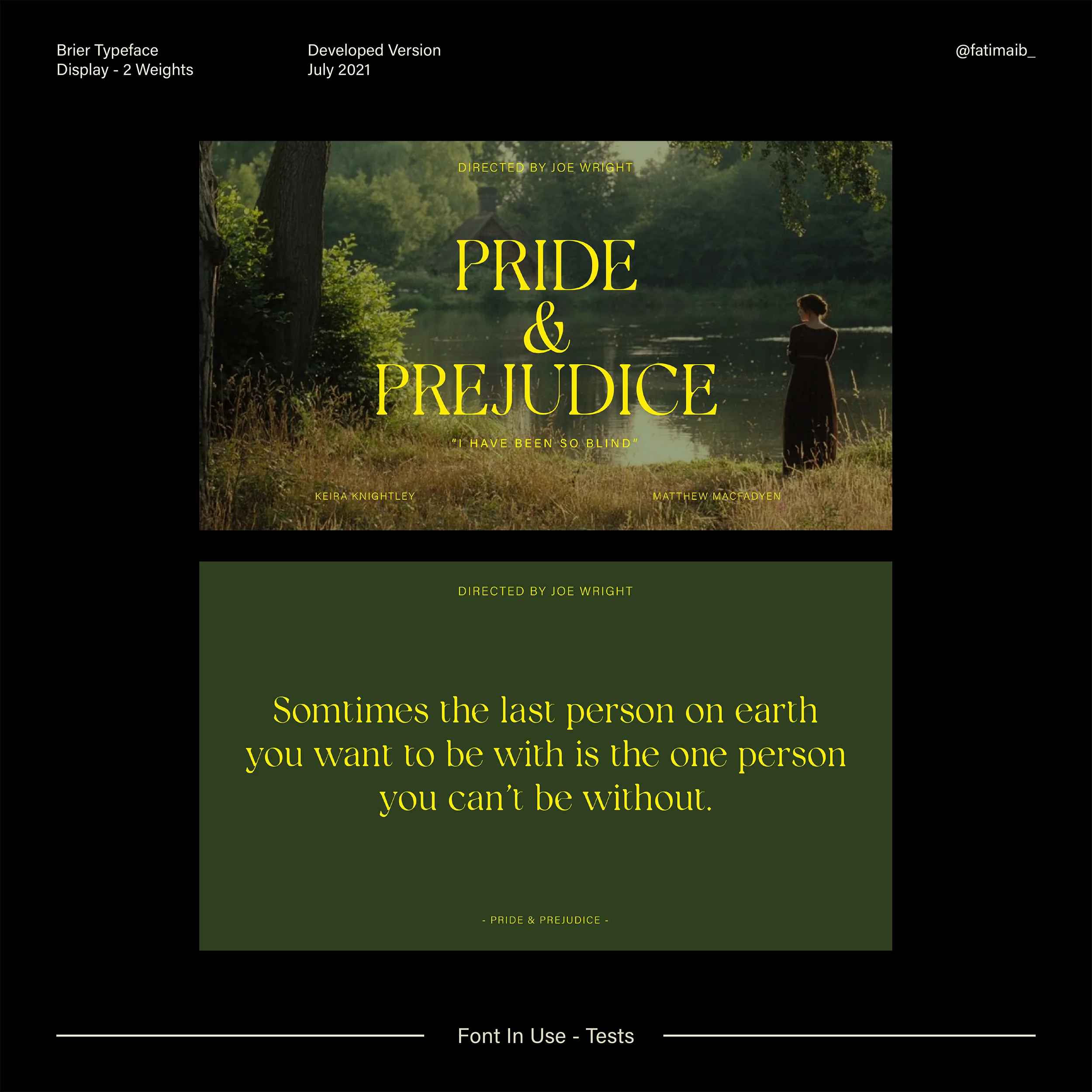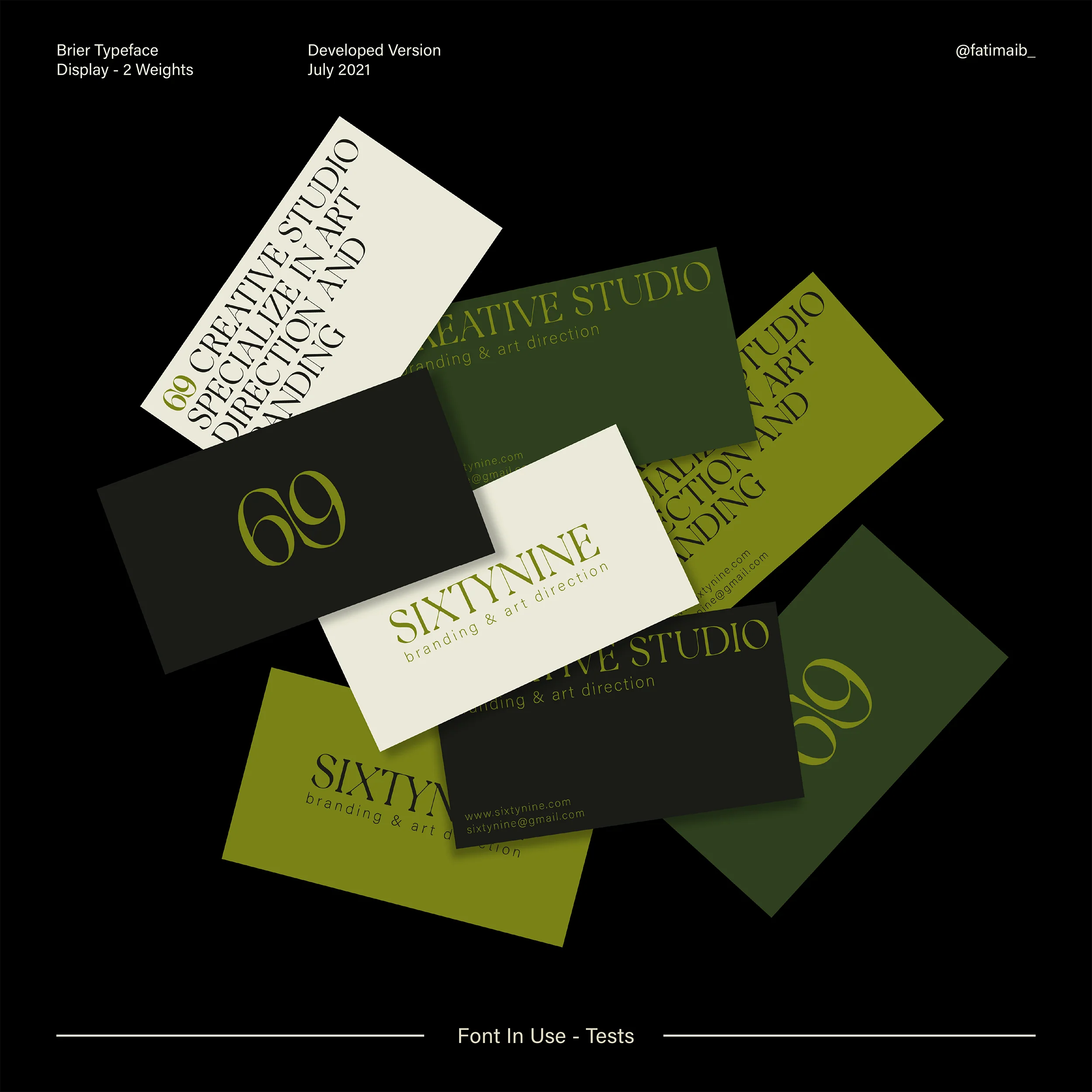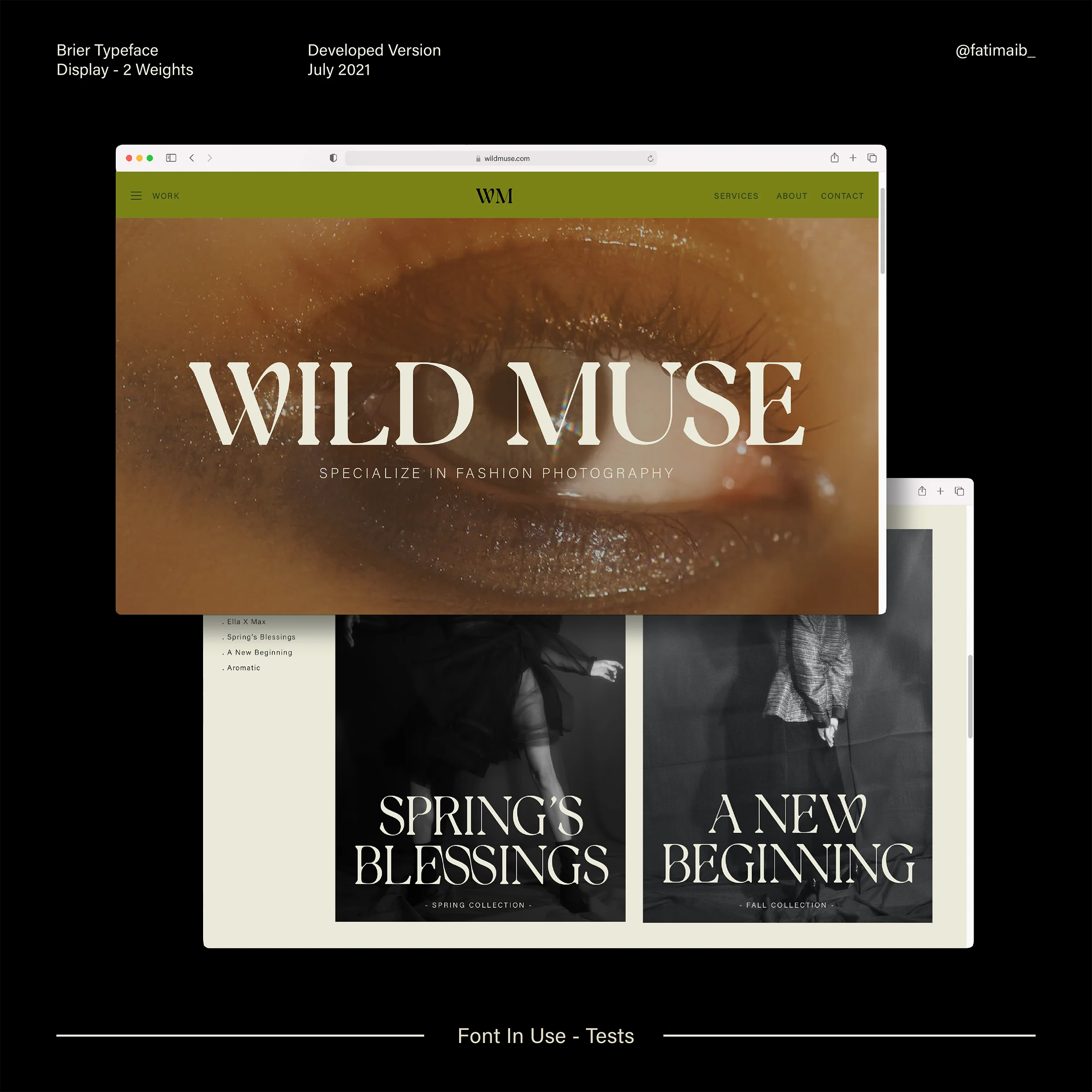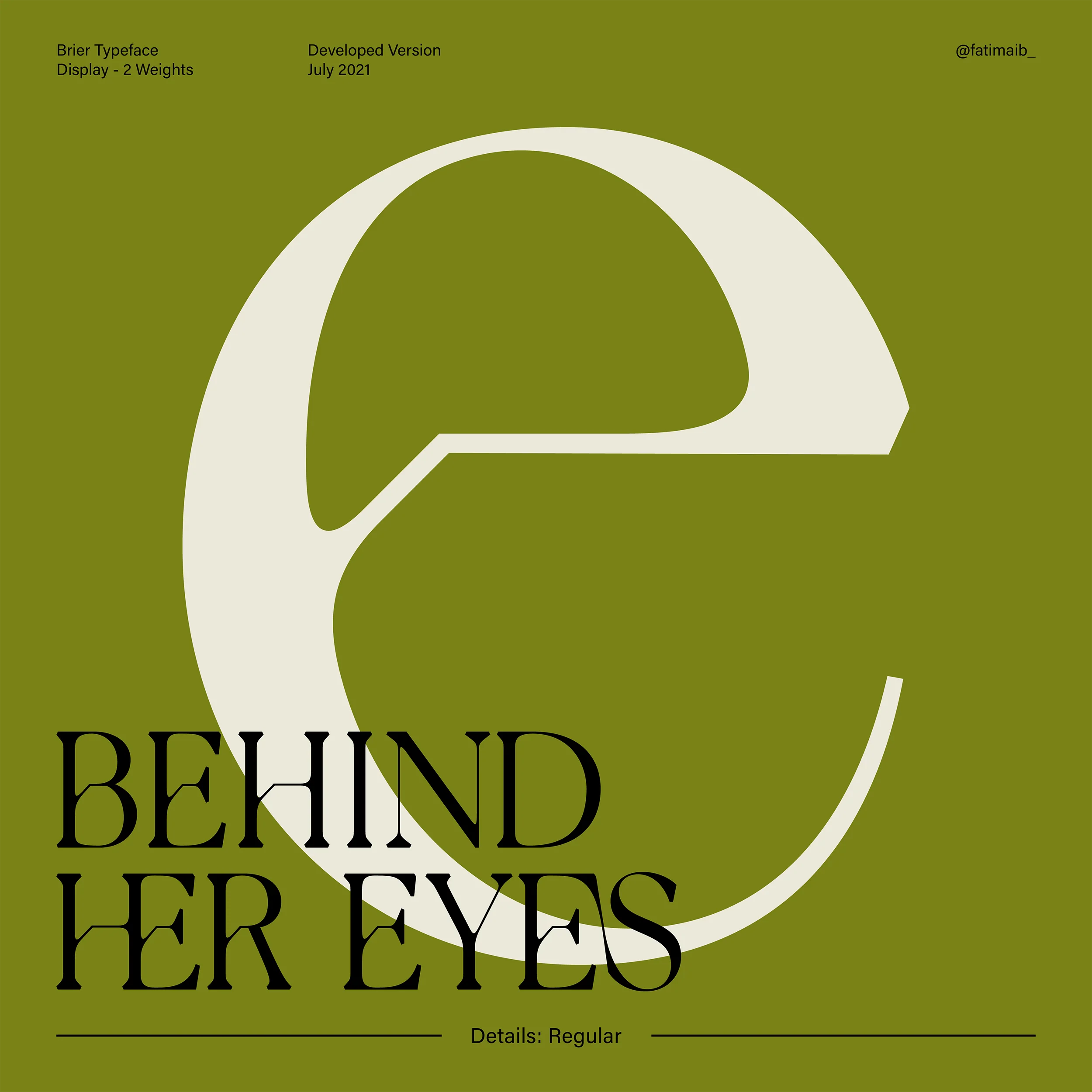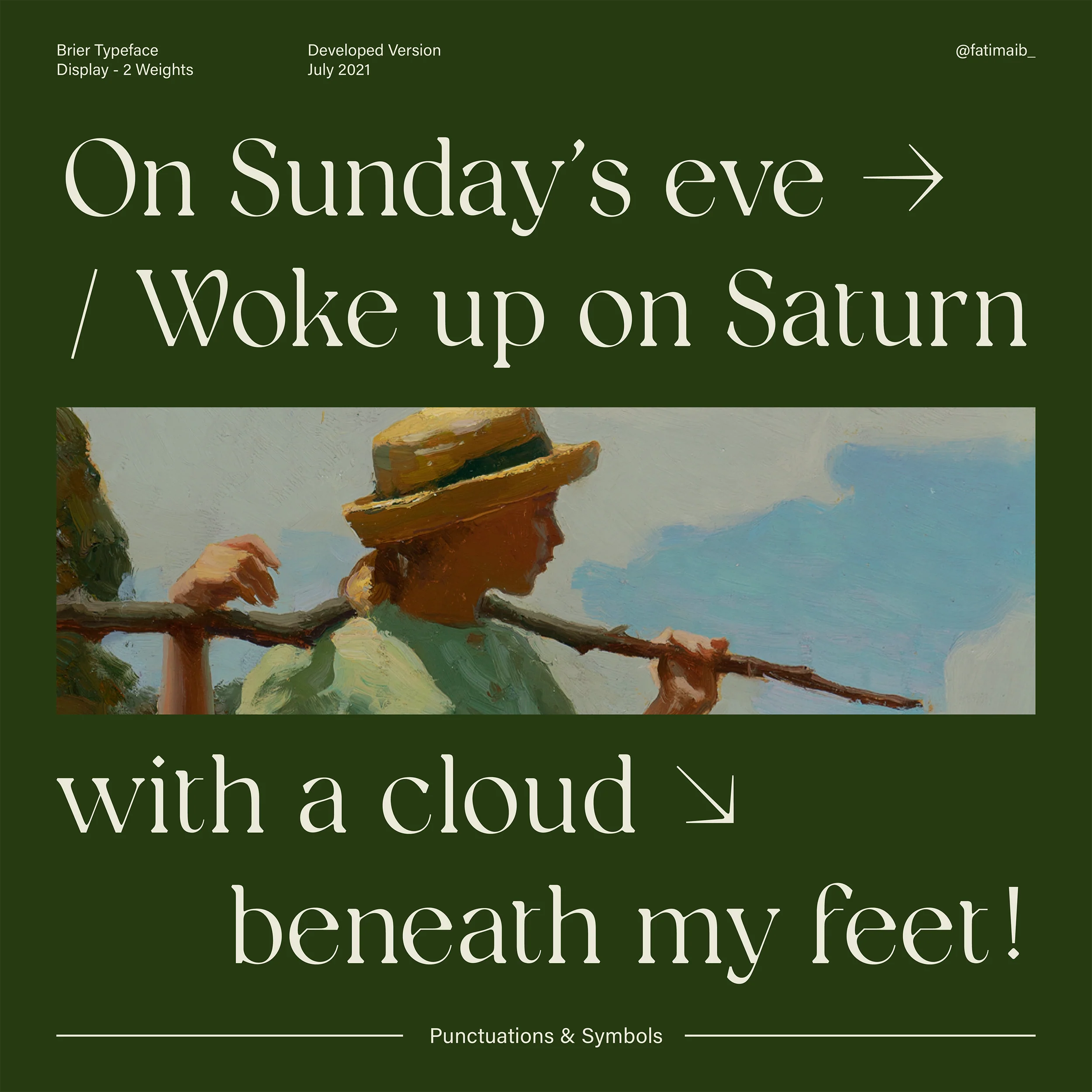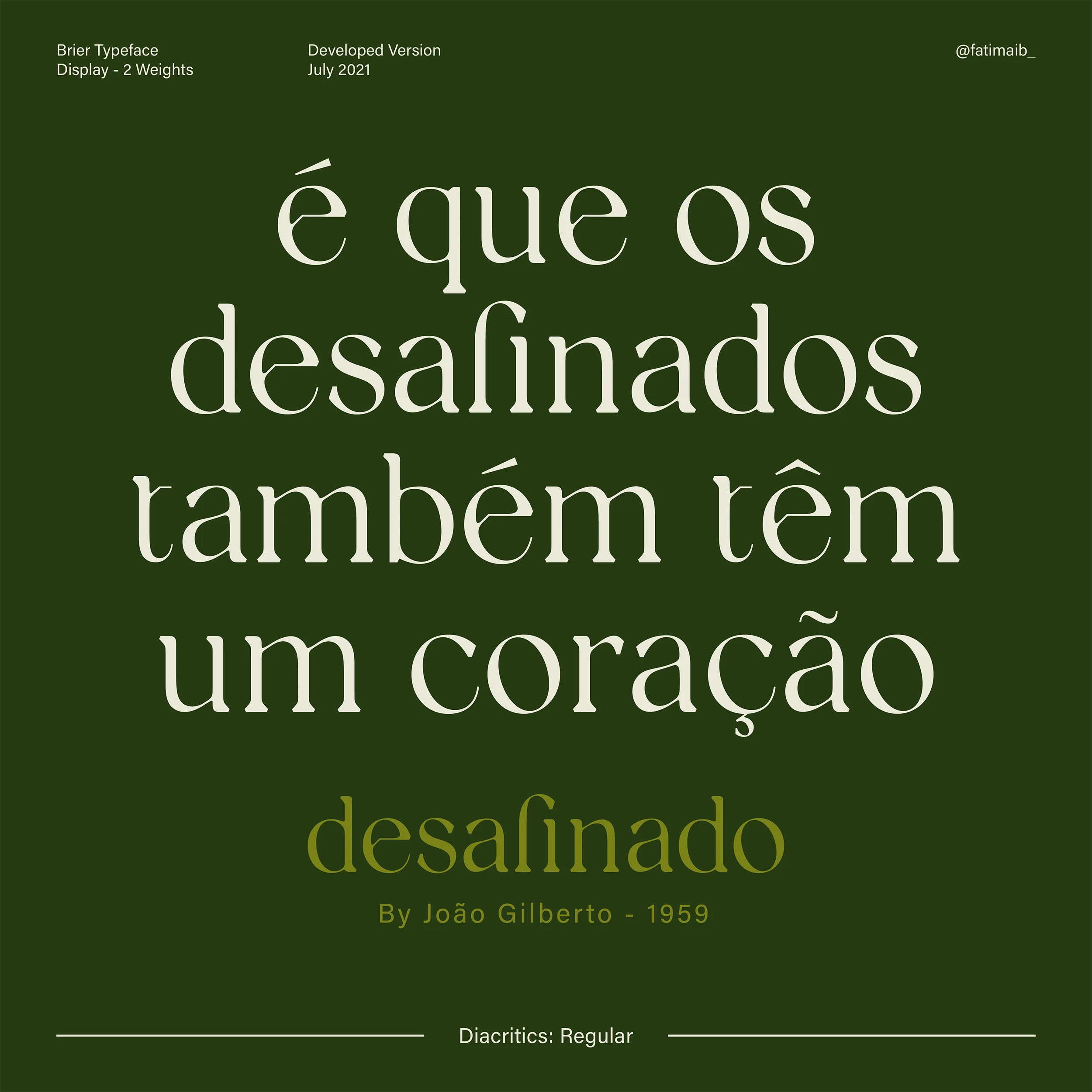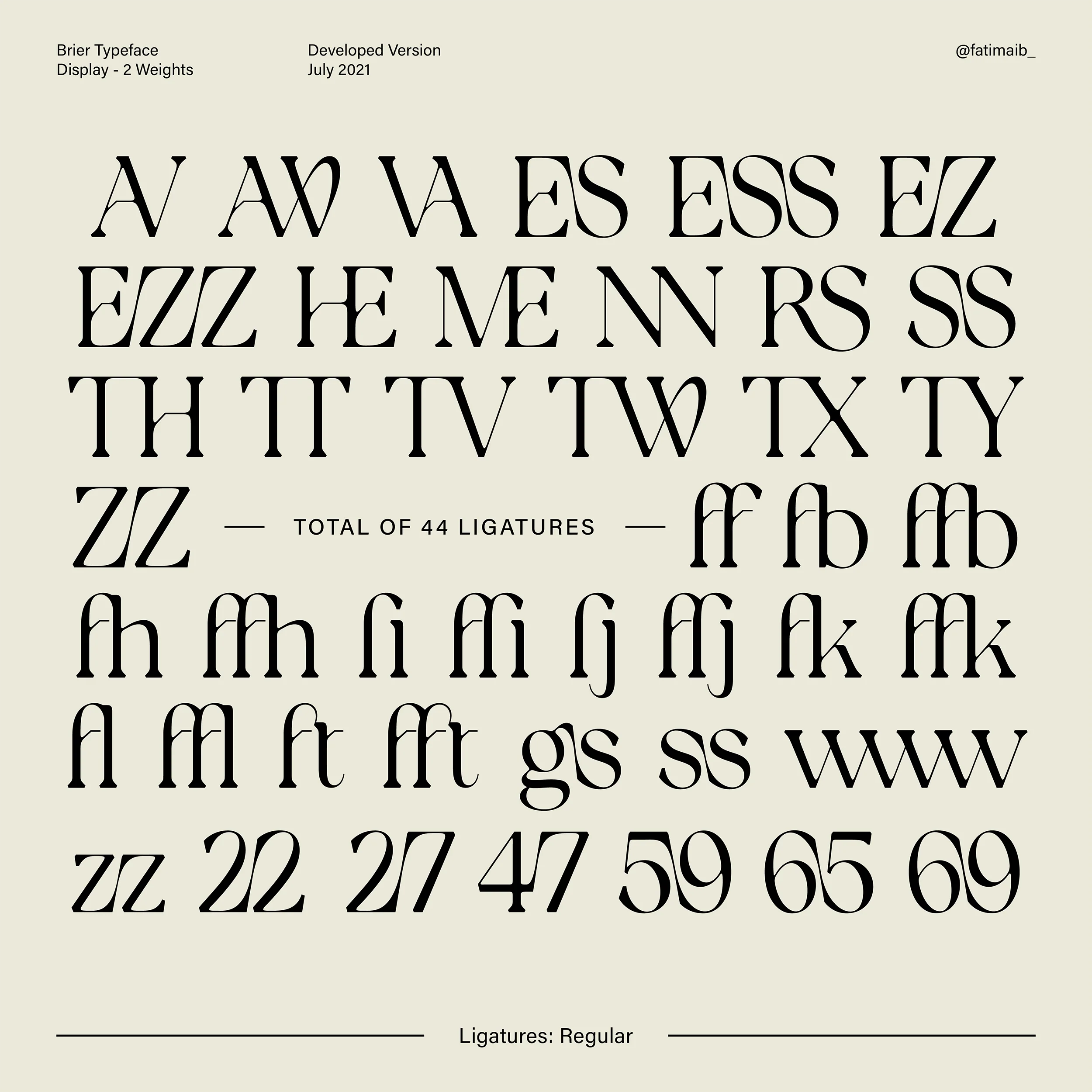
Brier
Brier is a sophisticated serif display typeface primarily inspired by elements of nature. Its design reflects botanical influences, evident in the delicate broken strokes within the crossbars and the graceful humanist letterforms, blending classic aesthetics with a contemporary twist. Originally crafted in March 2021, this typeface is available in two weights: Regular and Bold, each offering over 380 glyphs. Brier is equipped with stylistic alternatives, diacritics, and ligatures, providing ample flexibility to customise and achieve your desired aesthetic.
Perfect for editorial layouts, branding, and decorative purposes, Brier combines timeless elegance with modern versatility, making it an ideal choice for a wide range of design projects.
Brier is a sophisticated serif display typeface primarily inspired by elements of nature. Its design reflects botanical influences, evident in the delicate broken strokes within the crossbars and the graceful humanist letterforms, blending classic aesthetics with a contemporary twist. Originally crafted in March 2021, this typeface is available in two weights: Regular and Bold, each offering over 380 glyphs. Brier is equipped with stylistic alternatives, diacritics, and ligatures, providing ample flexibility to customise and achieve your desired aesthetic.
Perfect for editorial layouts, branding, and decorative purposes, Brier combines timeless elegance with modern versatility, making it an ideal choice for a wide range of design projects.